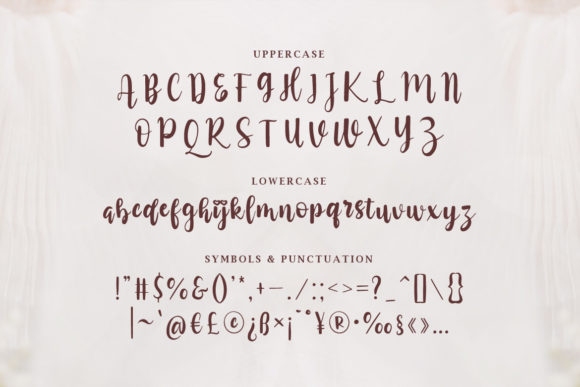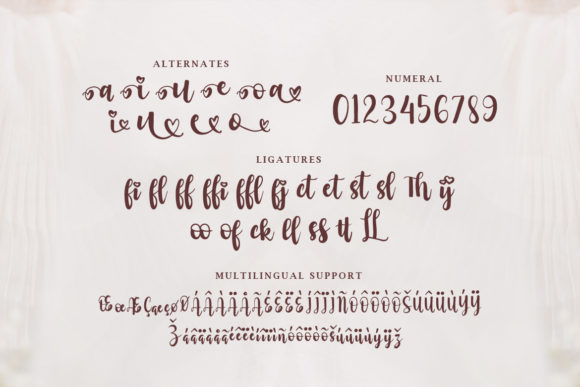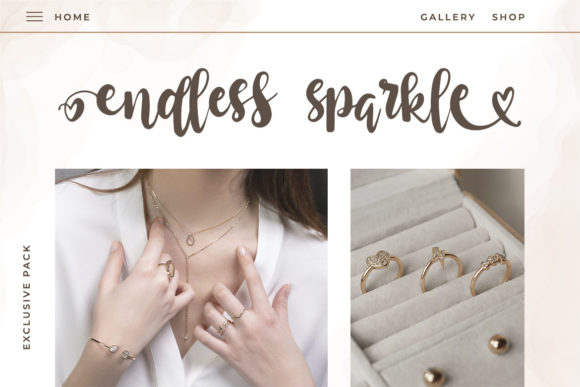
Introduction to It Loves You Font
Have you ever been stuck on a creative project, struggling to find the perfect font to bring your vision to life? I know I have. There’s nothing quite like the feeling of finally stumbling upon that elusive design resource that elevates your entire project. For me, that moment came when I discovered the beautiful It Loves You Font.
This lovely script font is a game-changer for designers, offering a high-quality, elegant style that’s perfect for a wide range of creative projects. From logos to wedding invitations, It Loves You Font is a versatile choice that’s sure to impress. With its PUA encoding, you can easily access all the amazing glyphs and ligatures, making it a breeze to customize and download.
Whether you’re working on a free download project or a paid client, It Loves You Font is a valuable addition to any designer’s toolkit. Its transparent background and beautiful design make it a standout choice for anyone looking to create something truly special. In this article, we’ll dive deeper into the world of It Loves You Font and explore its many uses and benefits.
Key Features of It Loves You Font
- High-quality design resource with a transparent background, ideal for creative projects.
- Features a unique and playful design, perfect for adding a touch of personality to your creative project.
Honest Review: It Loves You Font
I recently had the chance to experiment with the It Loves You Font, and I’m excited to share my thoughts. As a designer, I’m always on the lookout for high-quality resources to enhance my creative projects.
The It Loves You Font is a beautiful, elegant script that’s perfect for romantic or whimsical themes. It’s available for a free download, making it an excellent addition to any design resource collection.
Here are some things that work well with the It Loves You Font: ✨
- Beautiful, flowing script
- Works well for titles, headings, and short paragraphs
- Has a transparent background, making it easy to layer
However, there are a few limitations to keep in mind: ⚠️
- May not be suitable for body text due to its script style
- Limited character set (not ideal for longer paragraphs)
Overall, I’m impressed with the It Loves You Font. It’s a great addition to any designer’s toolkit, especially for creative projects that require a touch of elegance. Just be mindful of its limitations, and you’ll be all set to create stunning designs.
Tips for Getting the Most Out of It Loves You Font
Experiment with different font sizes, colors, and styles to create a unique visual identity for your project. Use the font in combination with other design elements, such as images and graphics, to create a cohesive and engaging design.
Common Use Cases for It Loves You Font
Use the It Loves You Font in wedding invitations, social media graphics, blog posts, or any other creative project that requires a high-quality, free font with a transparent background.